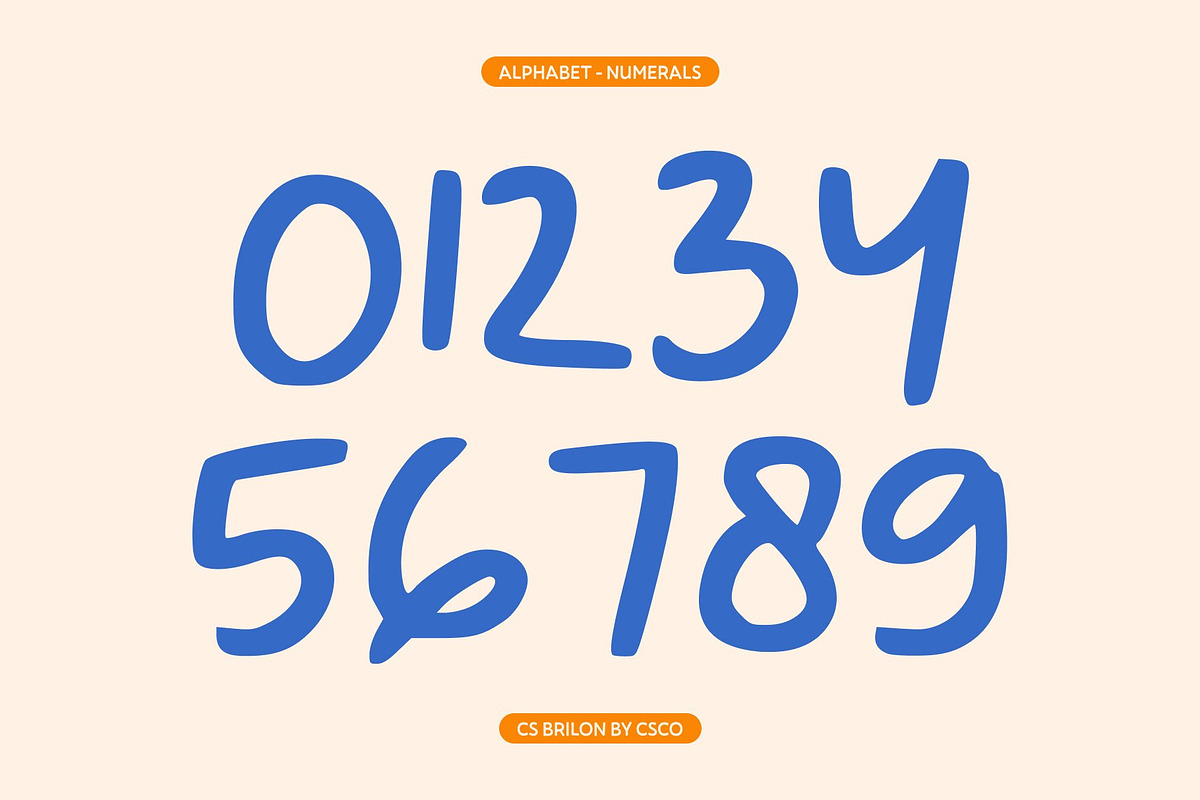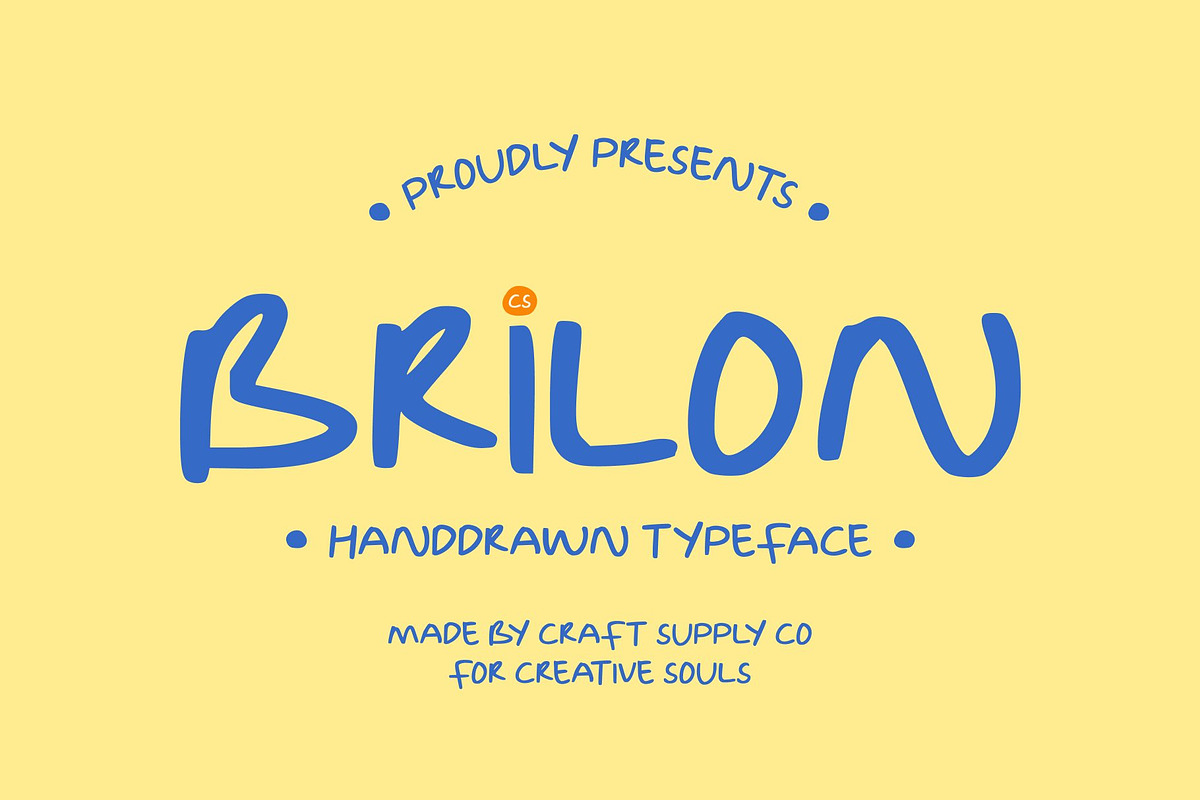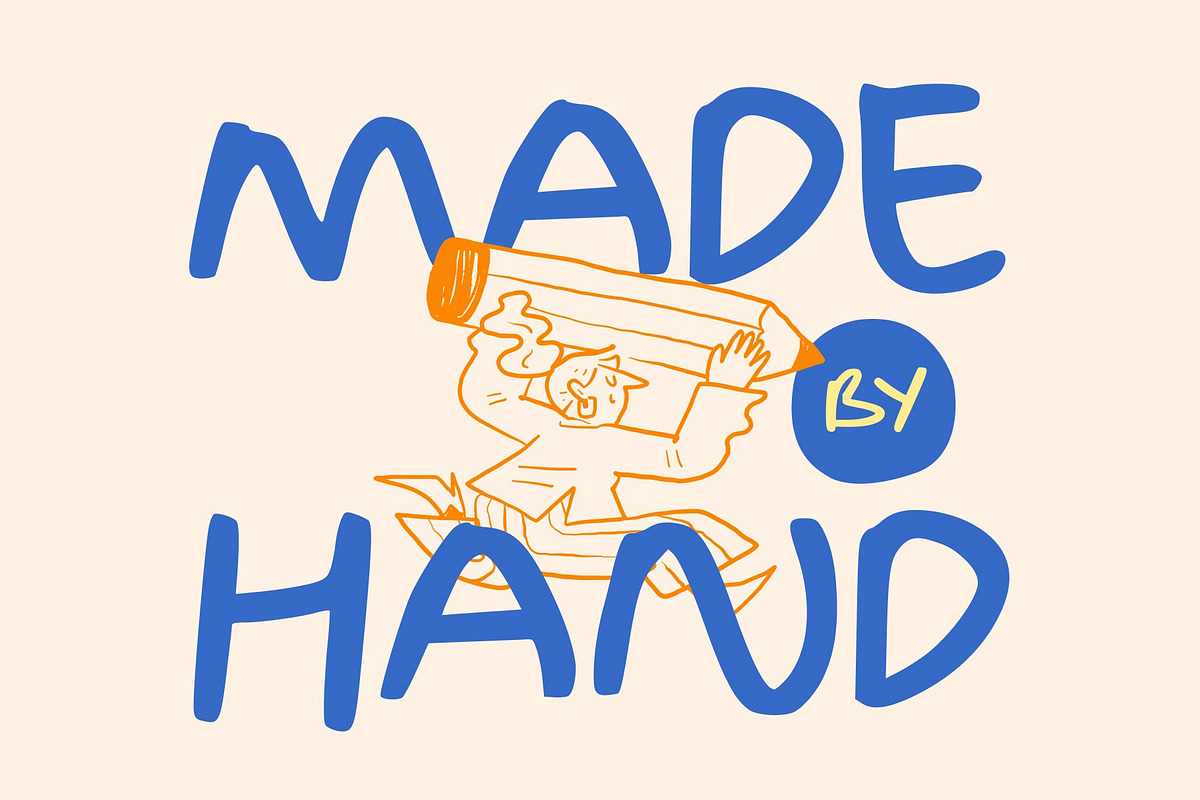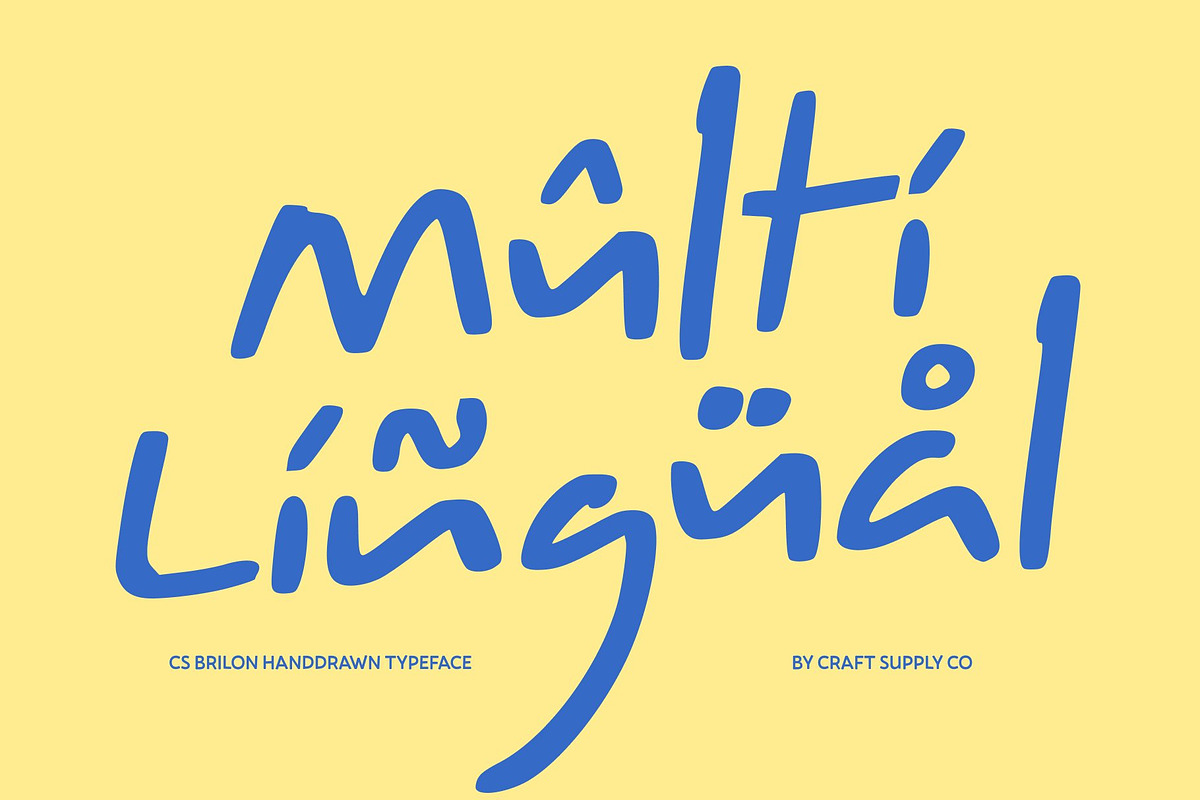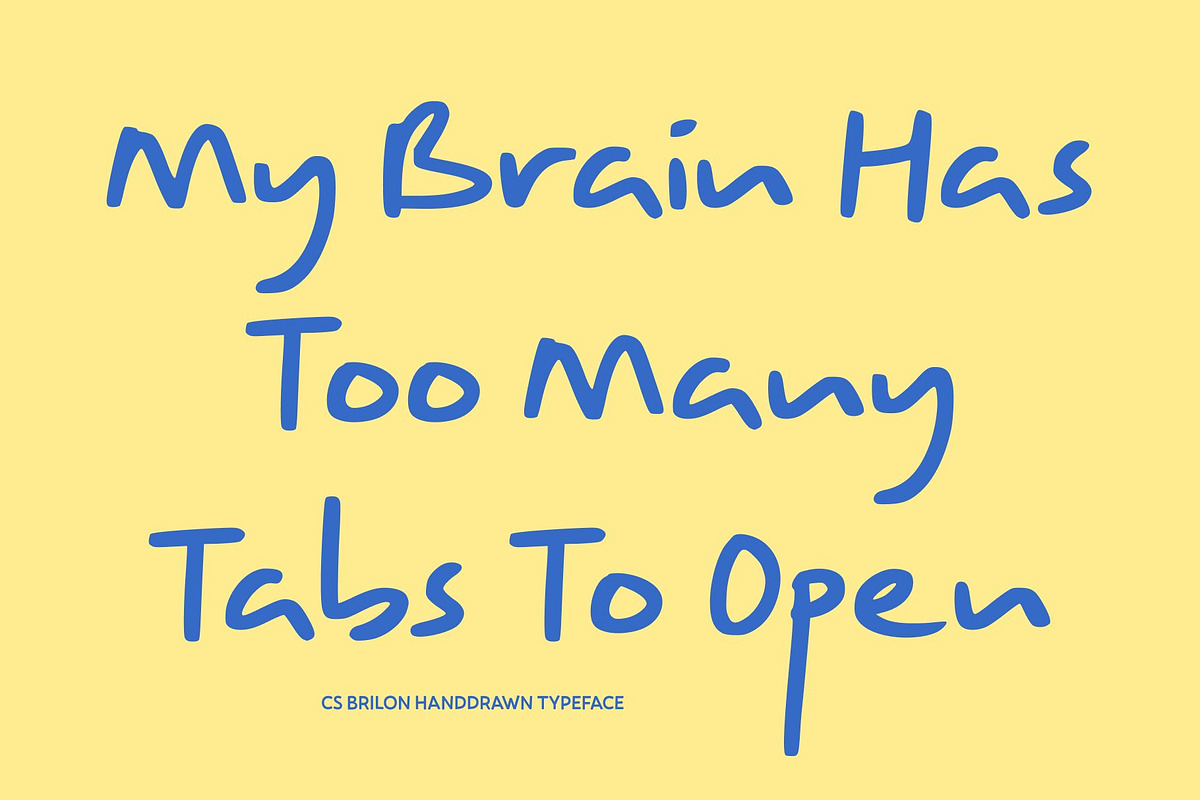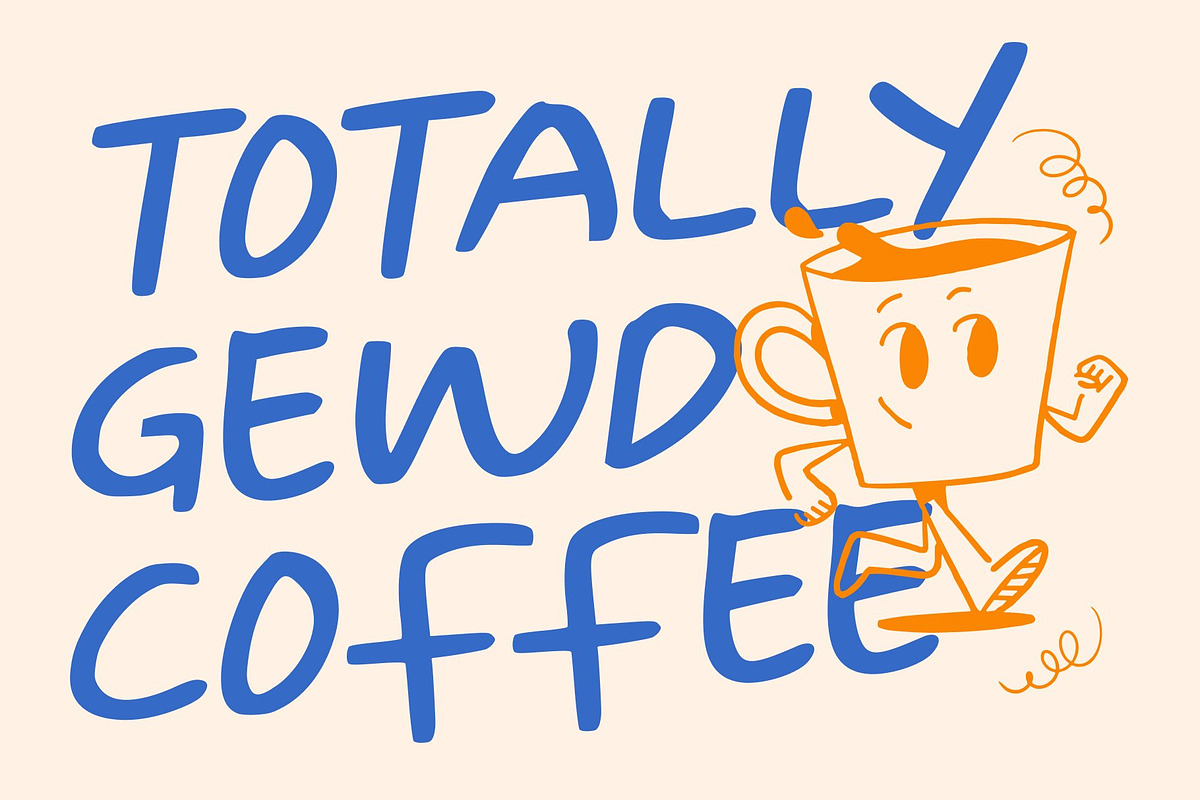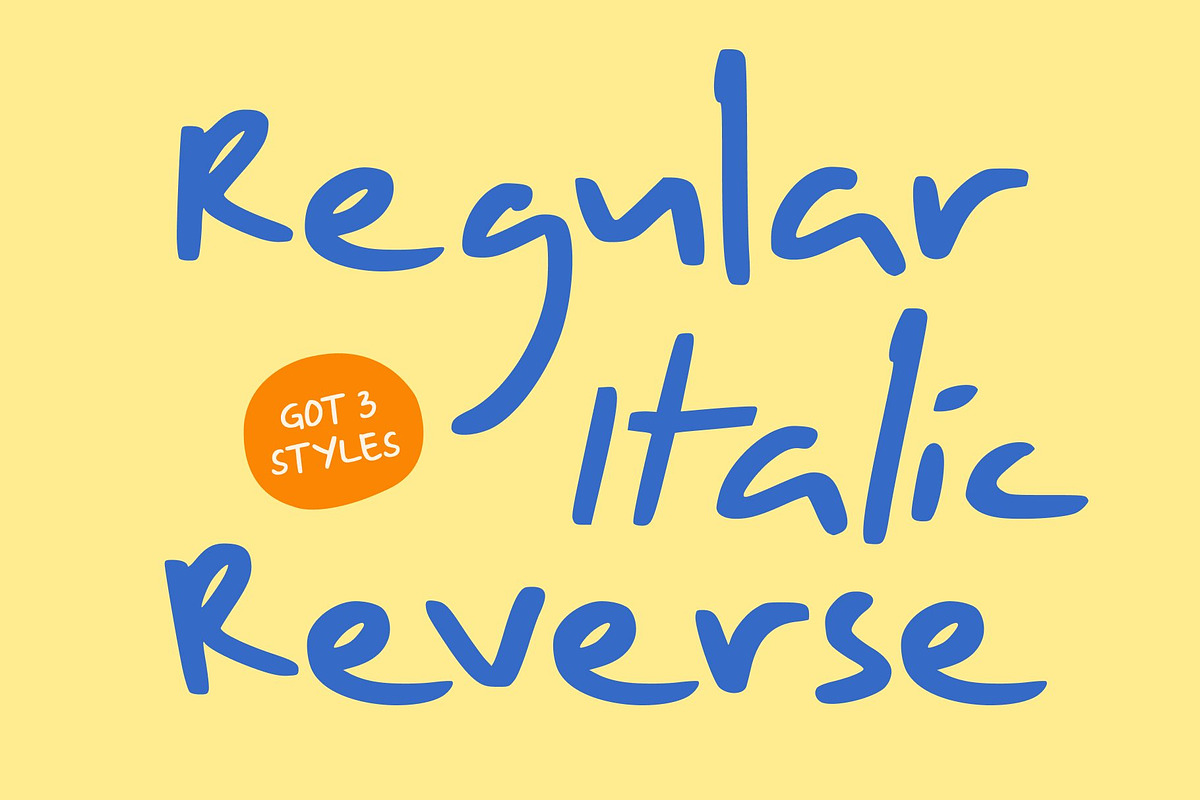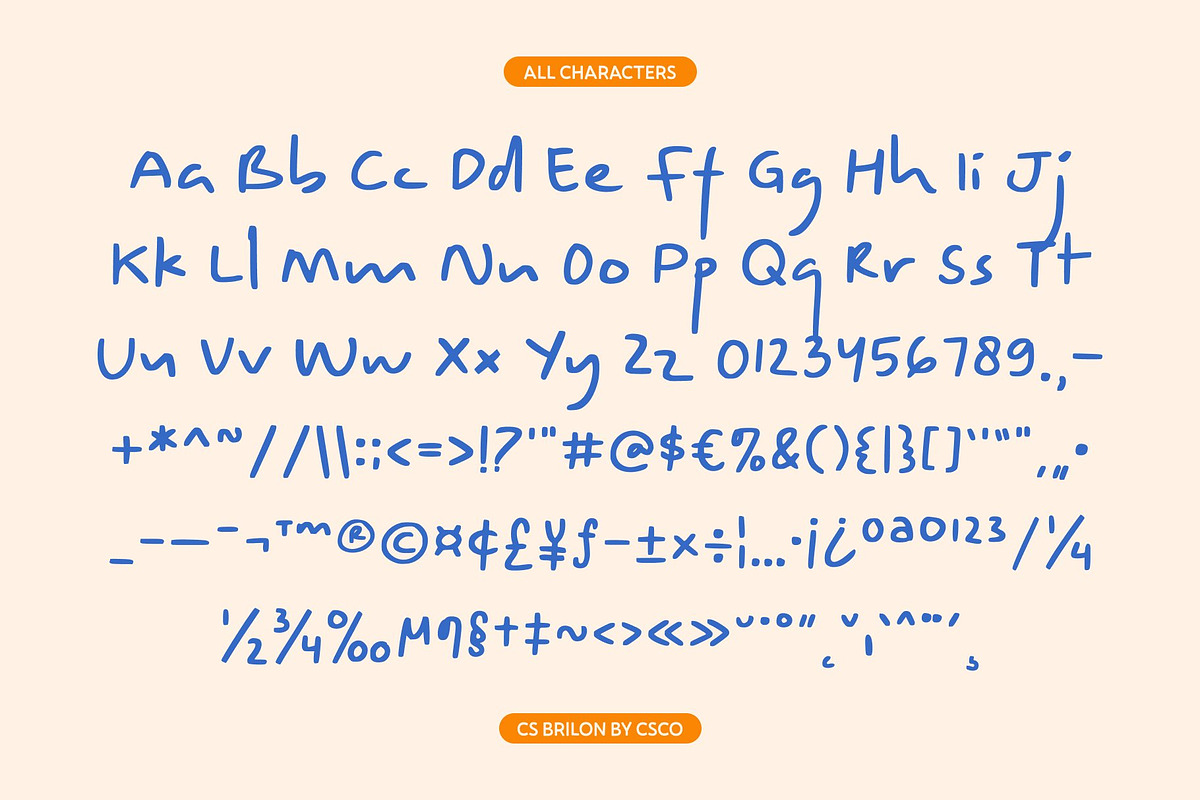
CS Brilon – Handdrawn Font
CS Brilon – Organic Hand-Drawn Expression with Artistic Soul
Hand-Drawn Display Font with Textured Character This is a hand-drawn sans serif font crafted to celebrate artistic freedom and organic expression. Designed with textured strokes and imperfect edges, this font delivers a raw, handmade feel that feels authentic and full of personality. Its expressive forms break away from rigid structure, making an ideal choice for creative projects that value originality and human touch over perfection.
Imperfect Edges with Natural Texture The distinctive charm of lies in its imperfect outlines and visible texture. Each letter carries subtle irregularities that add depth and warmth, creating a natural rhythm across words and layouts. These hand-crafted details give the font a tactile quality, making designs feel personal, artistic, and visually engaging. The textured strokes enhance its handcrafted aesthetic without compromising legibility in display use.
Artistic Style for Creative Storytelling This font thrives in expressive and imaginative design environments. Its organic character supports creative storytelling, allowing designers to convey emotion, creativity, and individuality through typography. Whether used boldly in headlines or as a focal element, adds character and artistic energy that elevates visual narratives and creative concepts.
Perfect for Posters, Packaging, and Creative Branding Designed for standout applications, this font is perfect for posters, packaging, creative branding, editorial visuals, and promotional materials. Its handmade vibe makes it especially suitable for artisanal products, indie brands, creative studios, and lifestyle projects.
- CS Brilon Regular
- CS Brilon Italic
- CS Brilon Reverse Italic